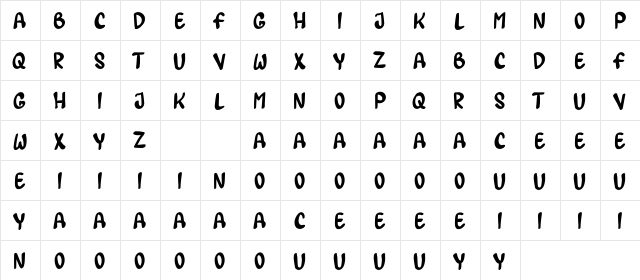
LEMATUN1 Regular
| Foundry | Adobe illustrasi |
| Designer | Nendi emelia pratiwi |
Design Context for LEMATUN1 Typeface
LEMATUN1 is a composed and adaptable typeface that performs quietly and consistently across a wide range of design contexts.